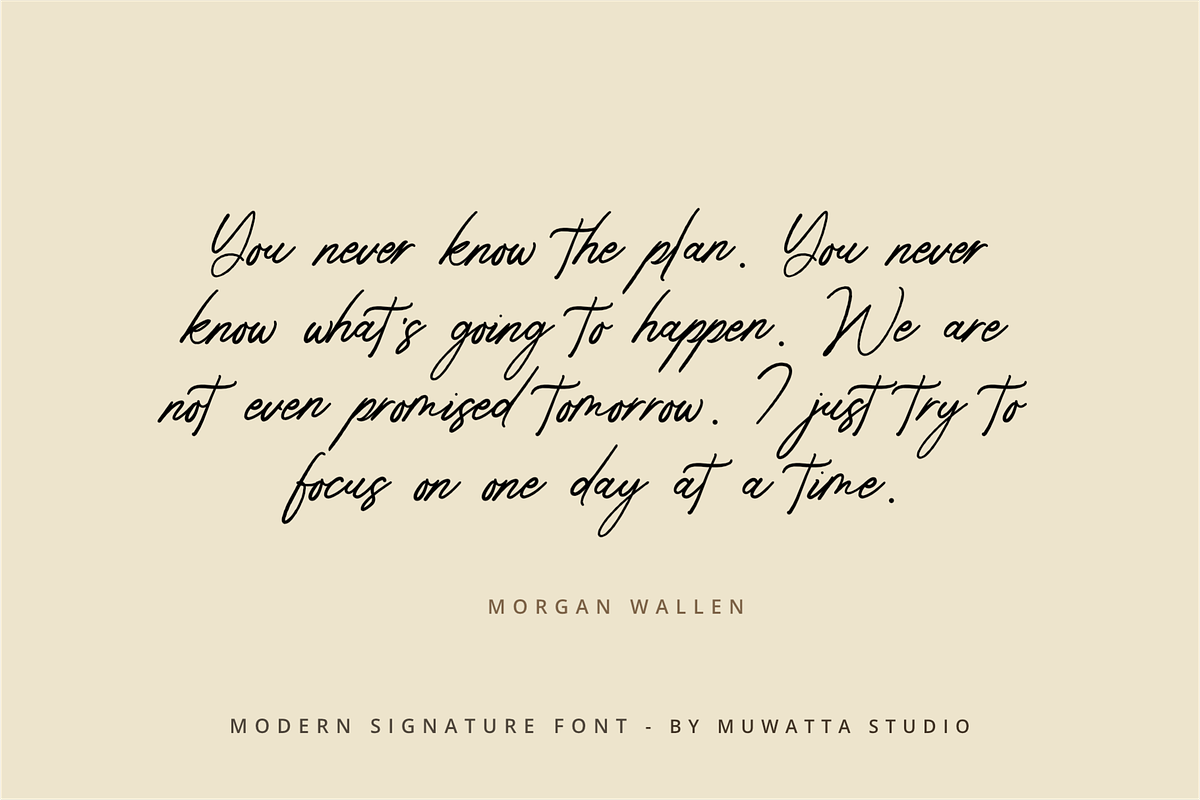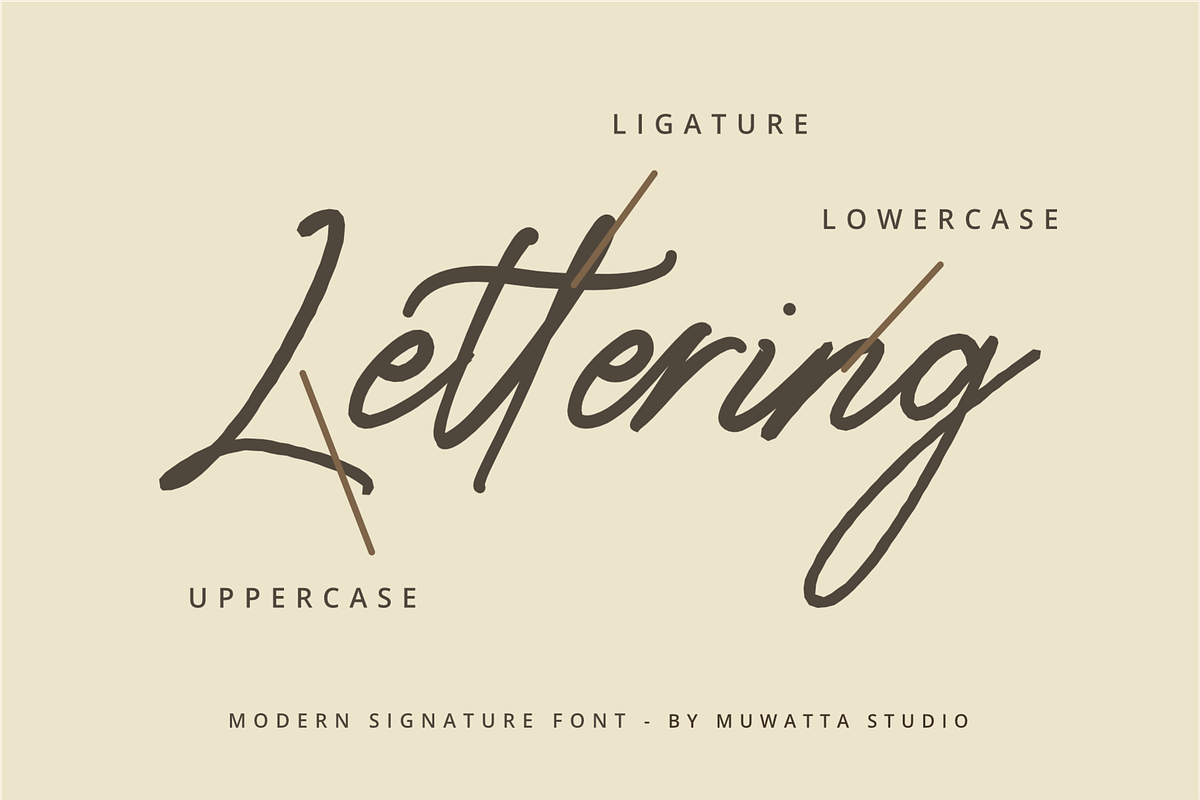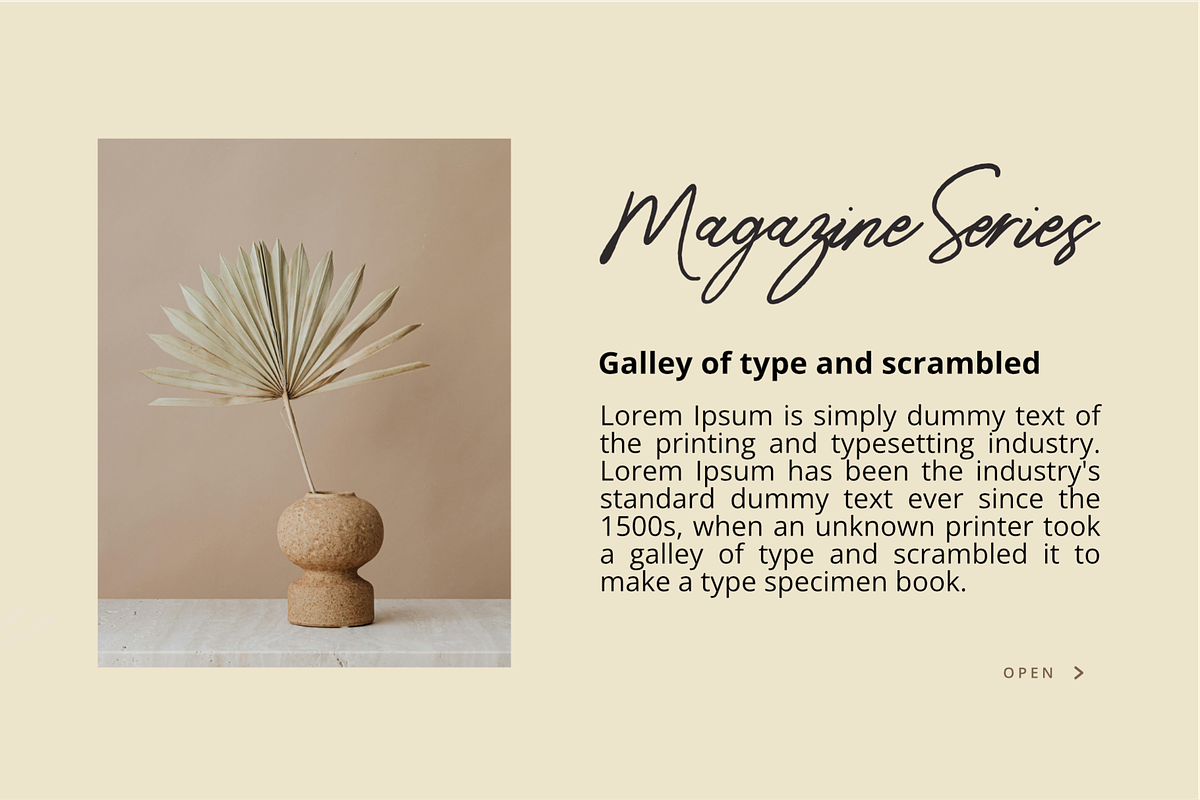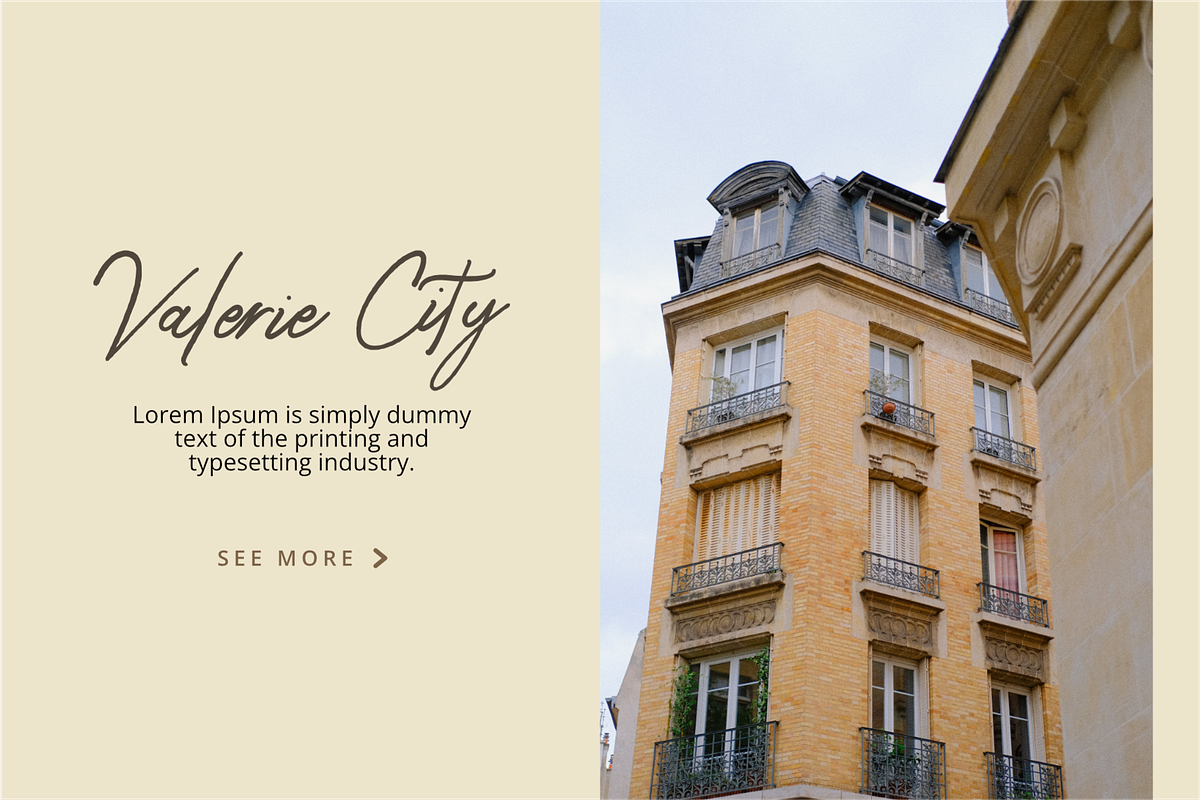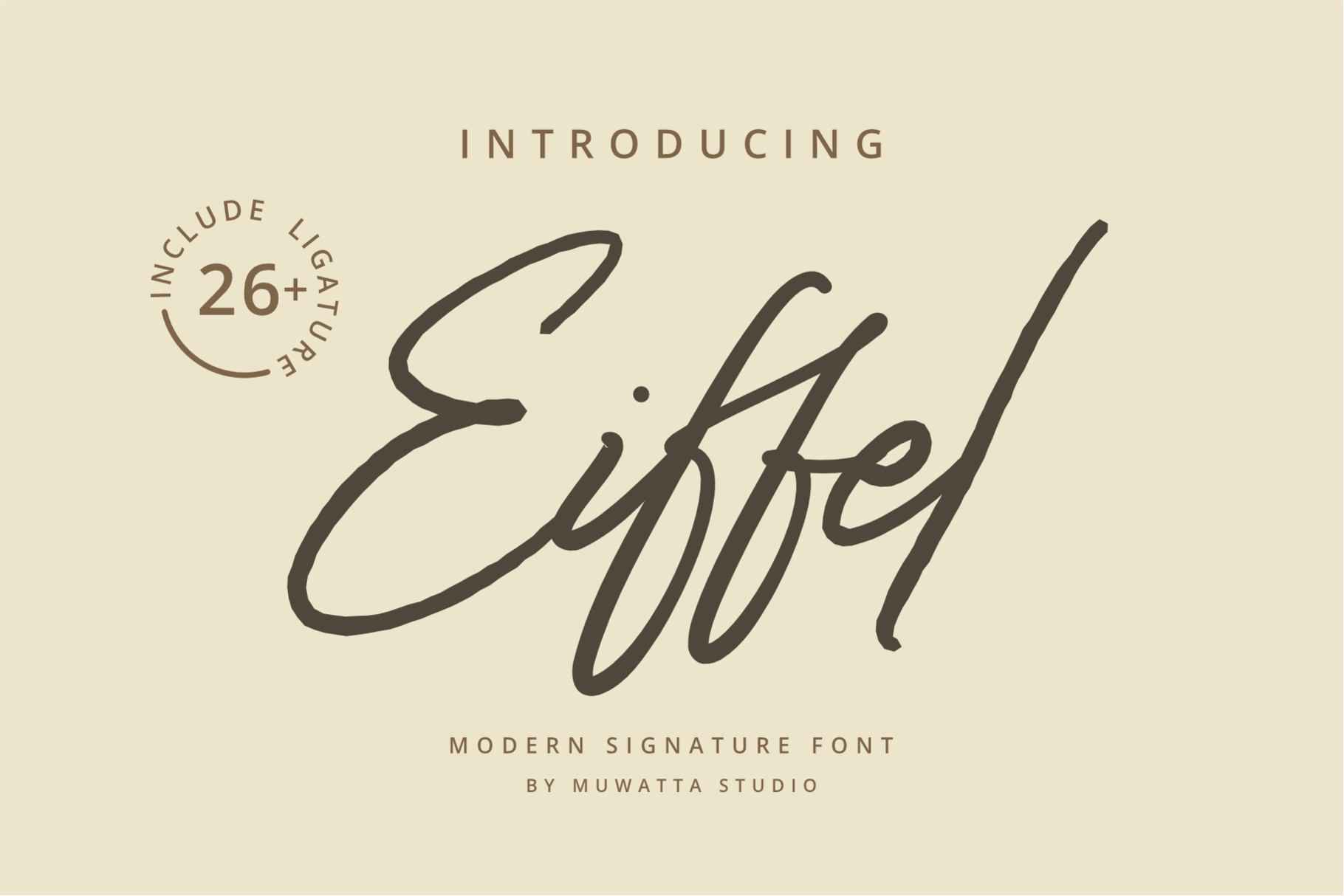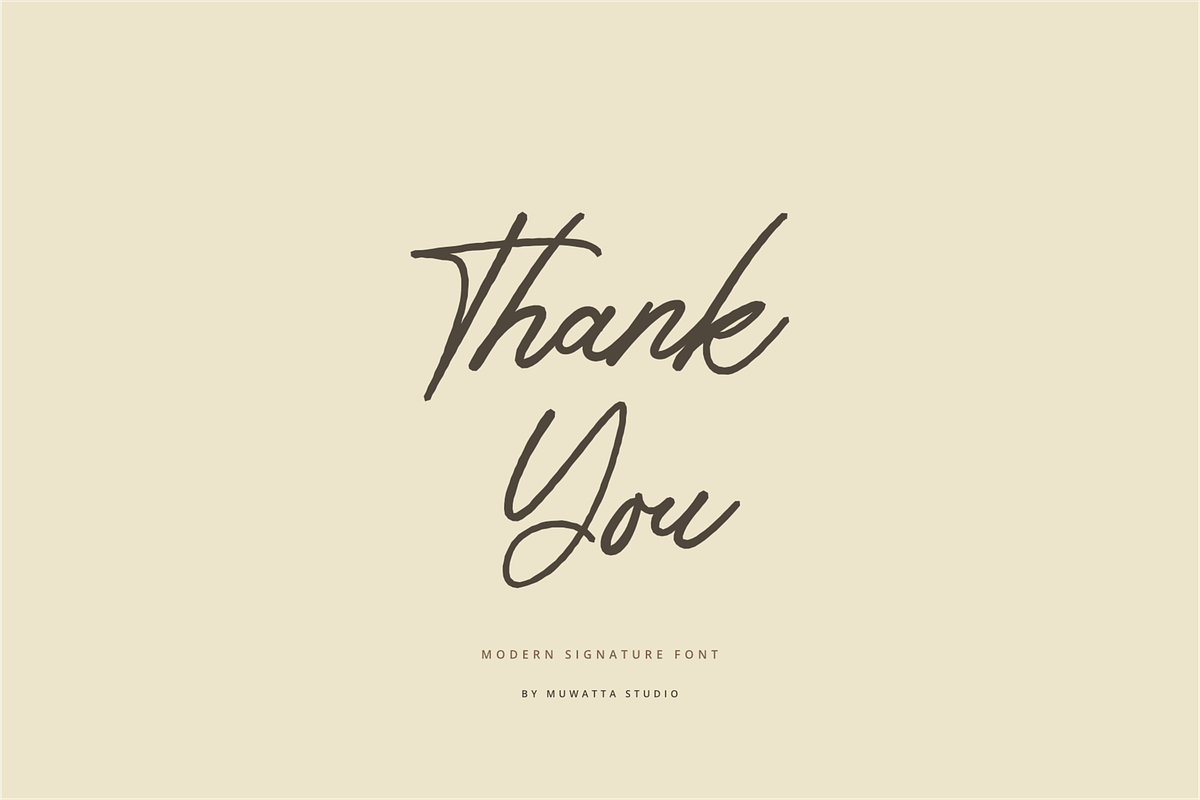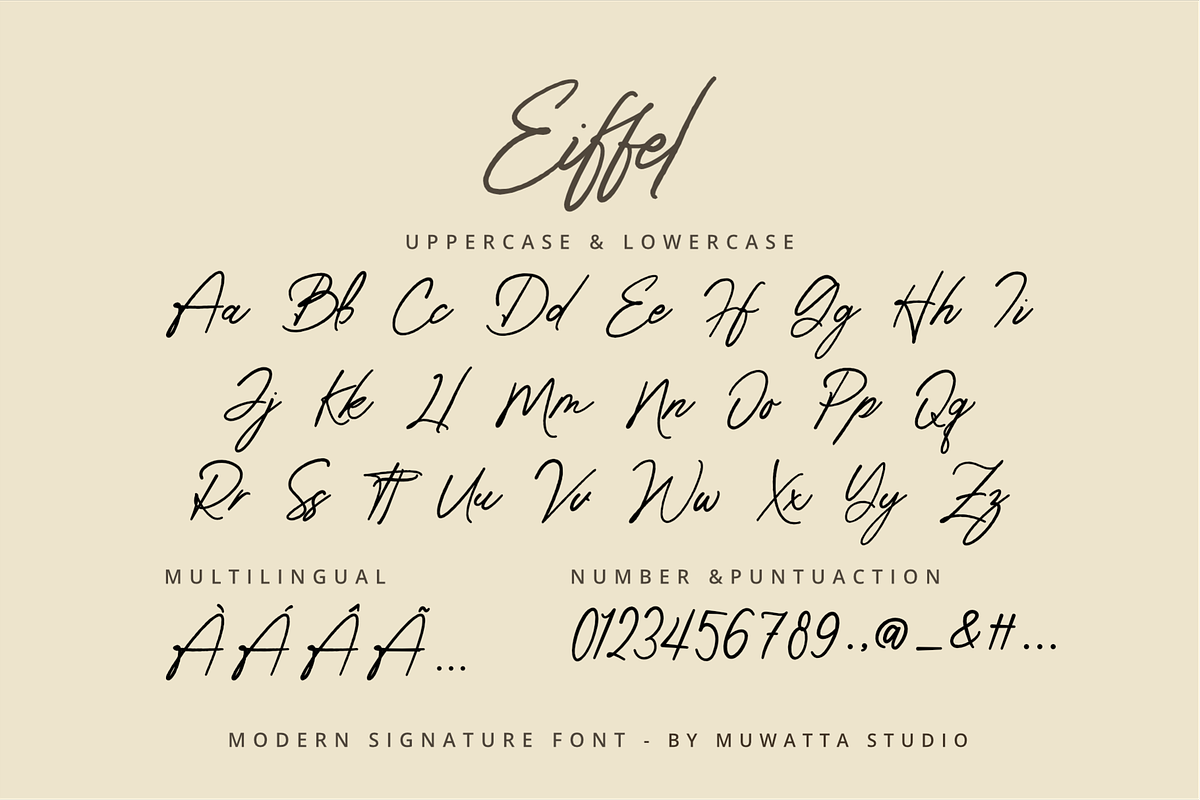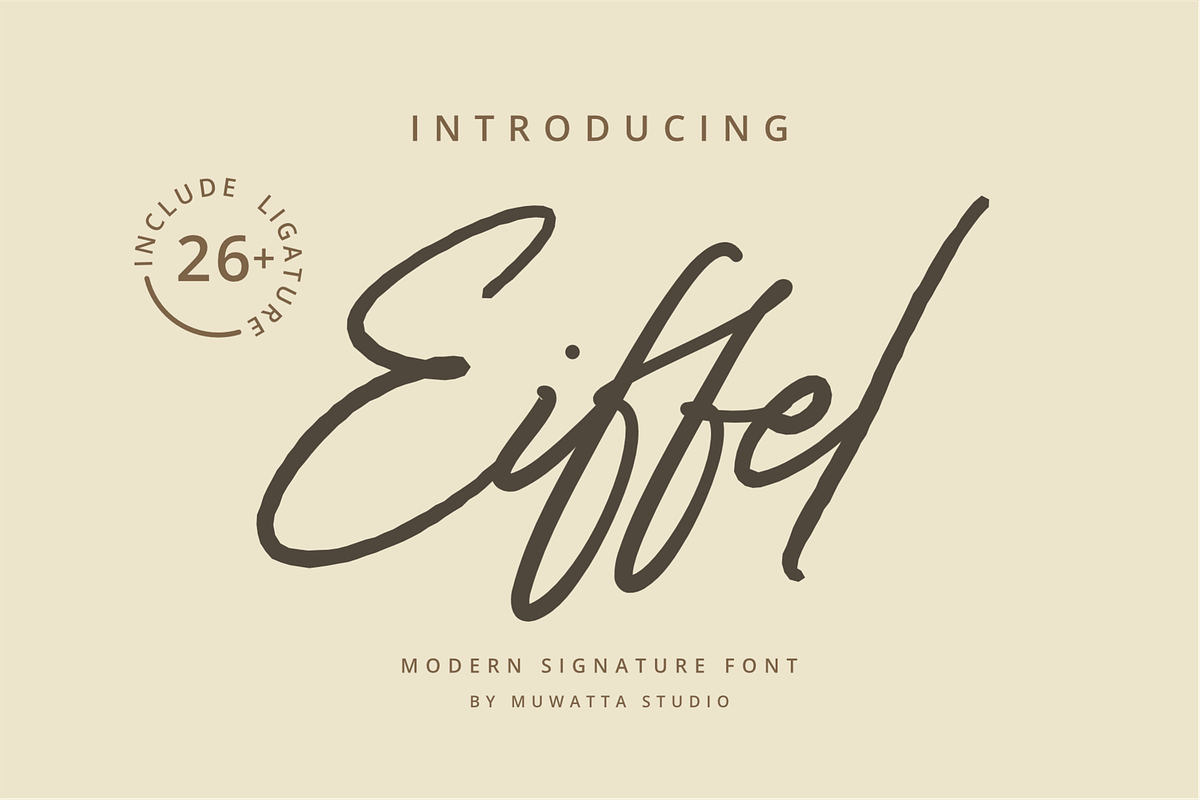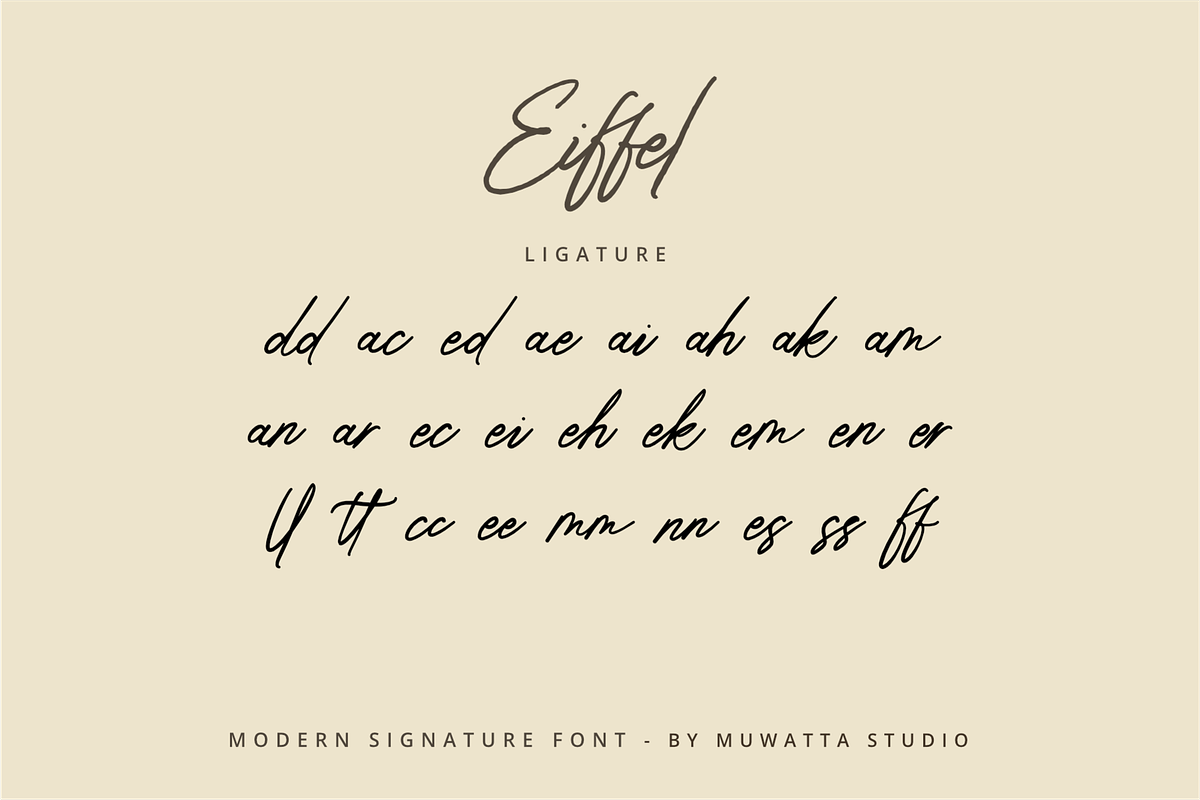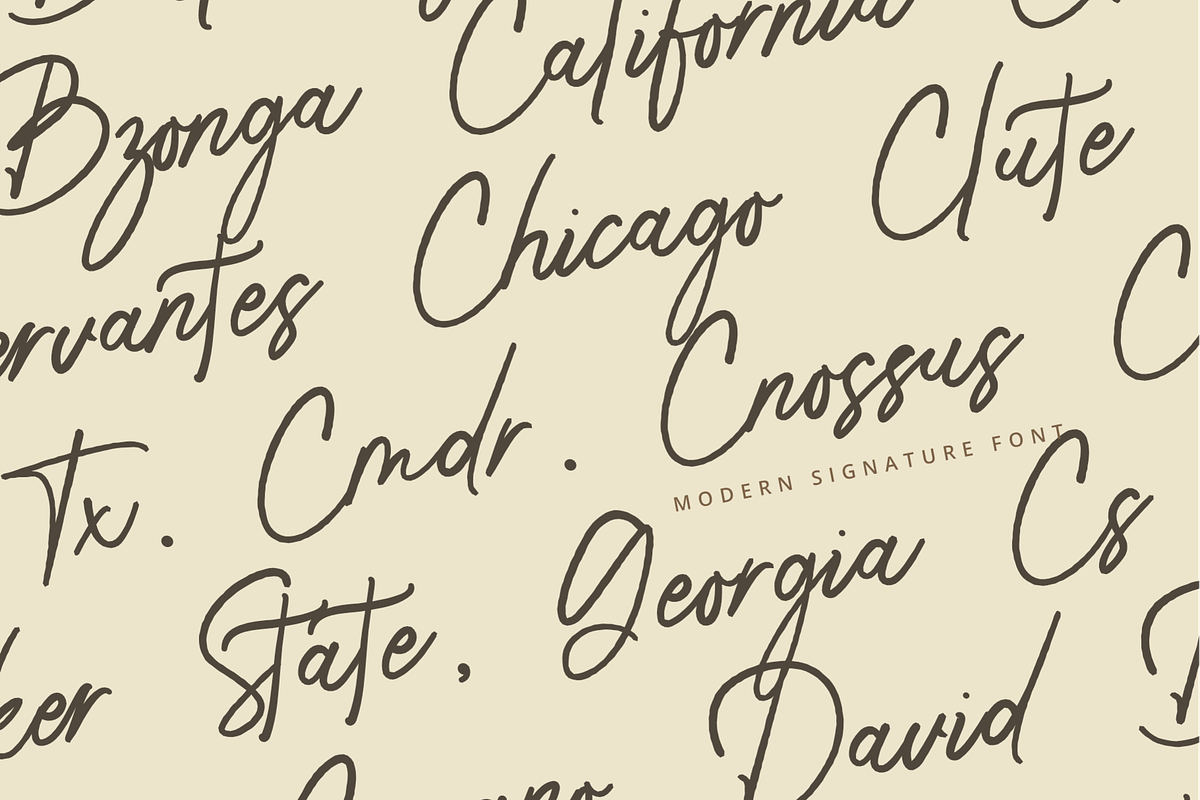
Eiffel Font
Eiffel is a natural script font inspired by casual yet elegant handwriting. With light, flowing strokes and full of character, Eiffel brings a warm, personal and effortless impression in every stroke.
-Full alphabet with Uppercase and Lowercase A-Z for script
-Numbers for all fonts
-Punctuation and symbols for all fonts
-Alternates Lowercase script
-Ligature Lowercase script
-Multilingual support all fonts